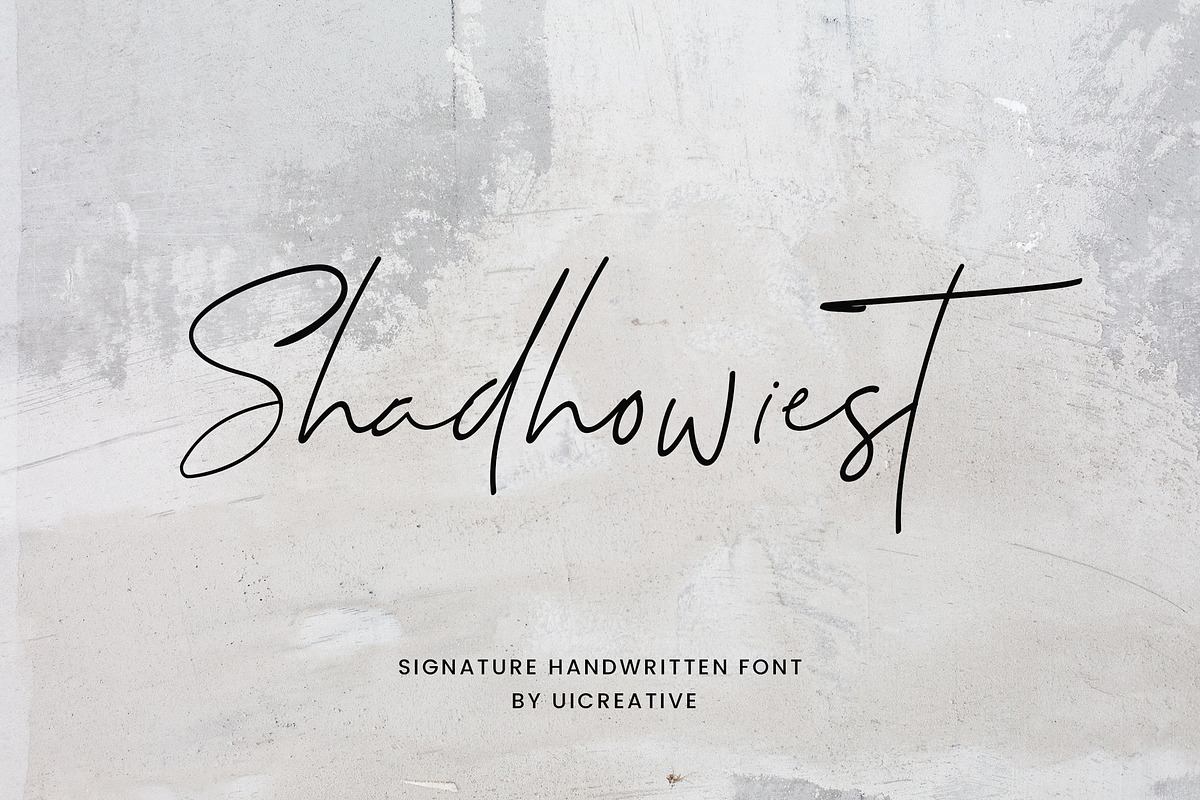
Shadhowiest Handwritten Font Free Download
Shadhowiest Handwritten Font Free Download is a charming and expressive script typeface that brings a natural, personal touch to any design. With its fluid strokes and handwritten elegance, this font is perfect for branding, social media graphics, invitations, greeting cards, and lifestyle blogs. It captures the warmth and authenticity of real handwriting, making your projects feel more intimate and engaging.
The casual yet stylish design of Shadhowiest Handwritten Font Free Download makes it ideal for creative professionals who want to add a relaxed, approachable vibe to their visuals. It’s especially effective in feminine and artistic layouts, where a soft, personal feel is key.